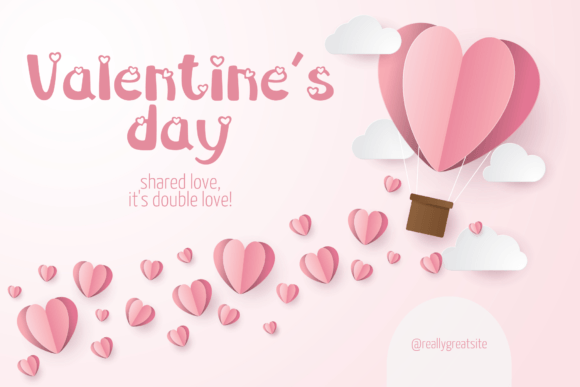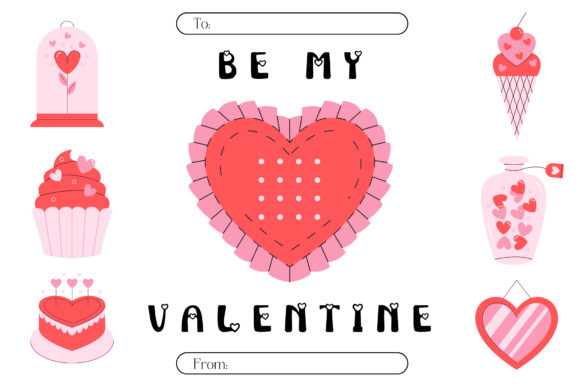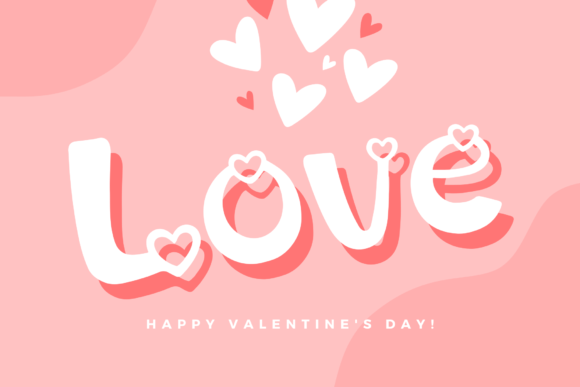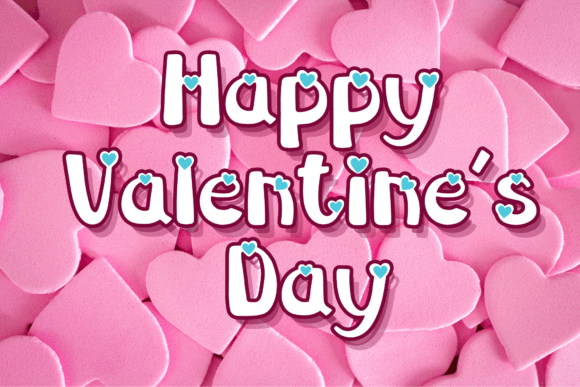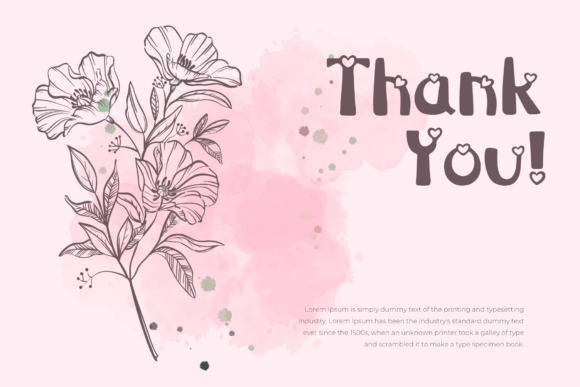
Introducing the Cutest Heart Font: Add a Touch of Whimsy to Your Designs
Are you looking for a font that will add a romantic and playful touch to your designs? Look no further than the Cutest Heart Font! This adorable display font is perfect for special occasions, featuring tiny hearts in every character that will make your titles and headlines stand out.
What Makes the Cutest Heart Font So Special?
The Cutest Heart Font is a unique and eye-catching font that is sure to capture the attention of your audience. Each character in the font features tiny hearts, adding a whimsical and romantic touch to your design. Whether you’re creating a Valentine’s Day card, a wedding invitation, or a social media post, this font is sure to make your design shine.
The Cutest Heart Font is ideal for designers and crafters who want to add a personal touch to their projects. With its playful and romantic vibe, this font is perfect for a variety of projects, including:
- Valentine’s Day cards and gifts
- Wedding invitations and decorations
- Party invitations and decorations
- Craft projects, such as scrapbooking and DIY gifts
Key Features of the Cutest Heart Font
The Cutest Heart Font has several key features that make it a must-have for designers and crafters:
- Tiny hearts in every character: Each character in the font features tiny hearts, adding a playful and romantic touch to your design.
- Adorable and whimsical: The font has a playful and whimsical vibe that’s perfect for special occasions.
- Perfect for titles and headlines: The Cutest Heart Font is ideal for titles and headlines, where you want to make a big impact.
- Easily readable: Despite its playful design, the font is still easily readable, making it perfect for use in a variety of projects.
How to Use the Cutest Heart Font
Using the Cutest Heart Font is easy! Here are a few tips to get you started:
- Pair it with a simple font: Pair the Cutest Heart Font with a simple font for body text to create a beautiful contrast.
- Use it for titles and headlines: The font is perfect for titles and headlines, where you want to make a big impact.
- Experiment with different colors: The font looks great in a variety of colors, so don’t be afraid to experiment and find the perfect color for your project.
The Cutest Heart Font is a unique and adorable display font that’s perfect for adding a touch of whimsy to your designs. With its tiny hearts and playful vibe, this font is sure to capture the attention of your audience. Whether you’re a designer or crafter, this font is a must-have for any special occasion. So why wait? Download the Cutest Heart Font today and start creating beautiful, eye-catching designs!